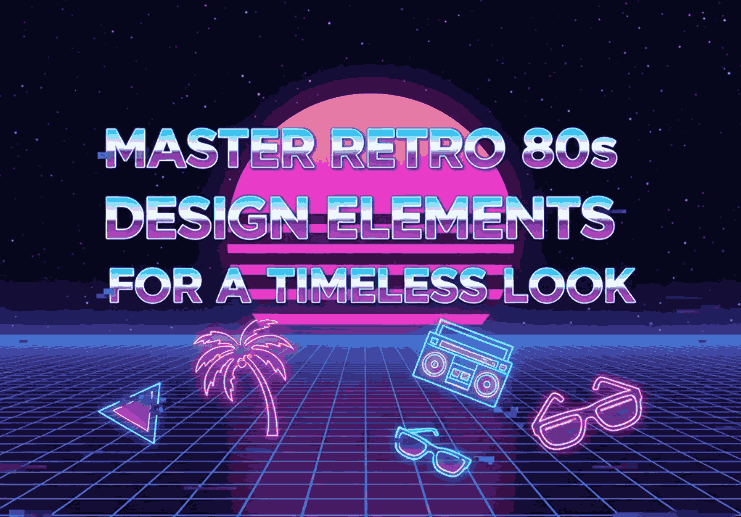
1. Introduction: The Magnetic Appeal of the Retro 80s Design Elements
Retro 80s Design Elements The 1980s were a golden era for creativity, characterized by bold colors, flashy graphics, and futuristic yet playful styles. The influence of the retro 80s design elements can still be felt across today’s branding, fashion, and digital art scenes. Designers are once again embracing neon color palettes, geometric shapes, and expressive typography to capture that nostalgic energy.
In this article, we’ll explore how to bring those iconic 80s design elements into your modern projects — and how the right fonts can play a major role in recreating that vintage magic.
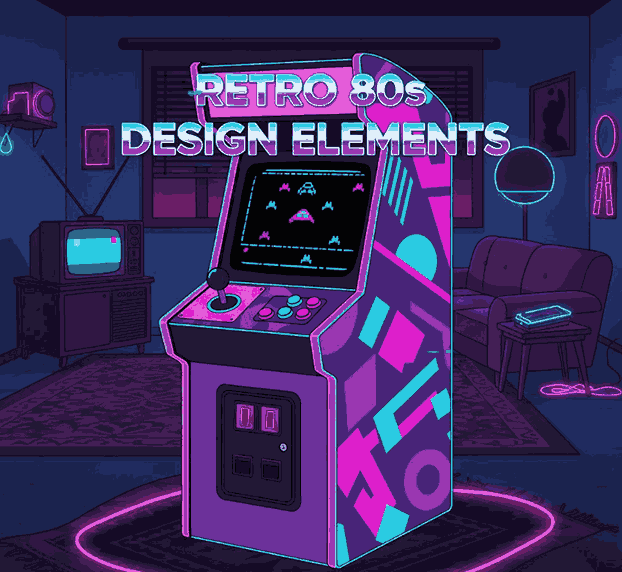
2. What Defines the Retro 80s Design Elements
The 80s aesthetic was all about maximalism and vibrancy. It rejected minimalism in favor of eye-catching visuals and fearless experimentation. Here are the defining features of this unforgettable style:
- Bright Neon Colors: Think hot pink, electric blue, and acid green.
- Geometric Shapes: Triangles, circles, and grids often overlapped in bold patterns.
- Gradients and Chrome Effects: Metallic textures and color fades gave designs a futuristic flair.
- Memphis Design Movement: Abstract shapes with bold outlines and playful asymmetry.
- Synthwave and Vaporwave Influence: Futuristic elements combined with nostalgic retro tones.
These characteristics together formed a design language that celebrated individuality and excitement.
3. Key Retro 80s Design Elements You Can Use Today
To create authentic 80s-inspired artwork, focus on these timeless design ingredients:
- Vibrant Color Palettes – Use strong contrast and high-saturation colors to attract attention.
- Dynamic Patterns – Integrate geometric backgrounds or abstract shapes for visual rhythm.
- Bold Typography – Mix chunky display fonts with neon glows or metallic gradients.
- 3D Graphics and Grids – Add dimension using retro perspective lines.
- Lighting Effects – Use glows, reflections, and chrome effects to replicate 80s flair.
These visual tools instantly transform any design into a nostalgic throwback.
4. The Role of Typography in 80s Design
Typography was central to the 80s aesthetic. Designers used bold sans-serif and neon script fonts to communicate energy and innovation.
- Display fonts were used in headlines to command attention.
- Script fonts evoked luxury, motion, and glamour.
- Condensed typefaces delivered futuristic, tech-inspired vibes.
5. Modern Ways to Incorporate 80s Style in Your Projects
While retro 80s design is nostalgic, it blends beautifully with modern aesthetics. Here’s how you can balance vintage and contemporary looks:
- Combine retro color schemes with minimalist layouts.
- Use retro fonts for headers but keep body text simple and clean.
- Incorporate gradients as subtle backgrounds or overlays.
- Add motion graphics with glowing effects to give digital designs an 80s vibe.
- Create themed brand visuals for product launches or limited-edition campaigns.
The key is to capture the essence of the 80s without overwhelming the viewer.
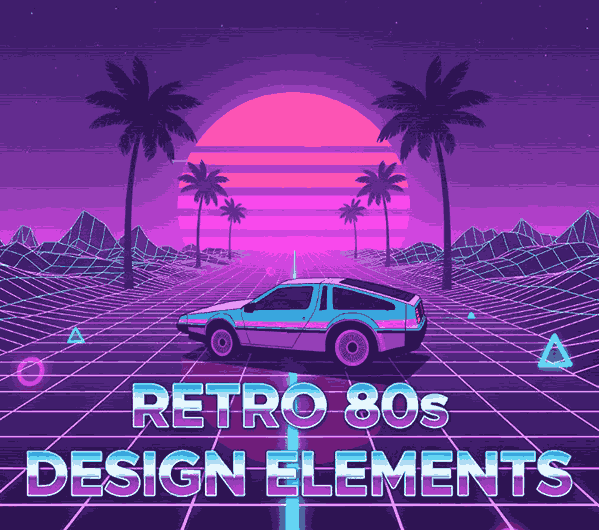
6. Best Fonts to Capture the 80s Aesthetic
To truly express the retro 80s design elements, typography is your secret weapon. Here are some perfect examples available at CalligraphyFonts.net:
- Rostia Font – A bold retro display font ideal for posters, album covers, and brand titles.
- Rowan Julio Font – A vintage serif with a timeless feel, great for combining old-school and modern design.
- Ocean Zander Font – Dynamic and stylish, this display font captures the vibrant rhythm of the 80s perfectly.
Each of these fonts carries a nostalgic flair that enhances visual hierarchy and makes your designs stand out.
7. Conclusion: Bringing Nostalgia Back with Style
The 1980s were about fearless creativity — and today, those retro 80s design elements are more relevant than ever. Whether you’re designing a poster, brand identity, or social media layout, incorporating bold colors, geometric shapes, and expressive fonts will infuse your work with vintage energy.